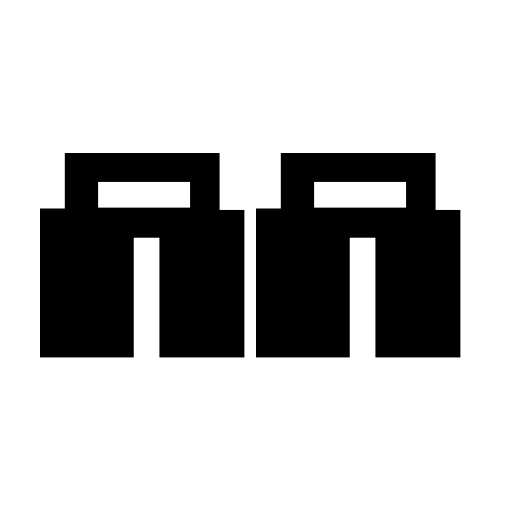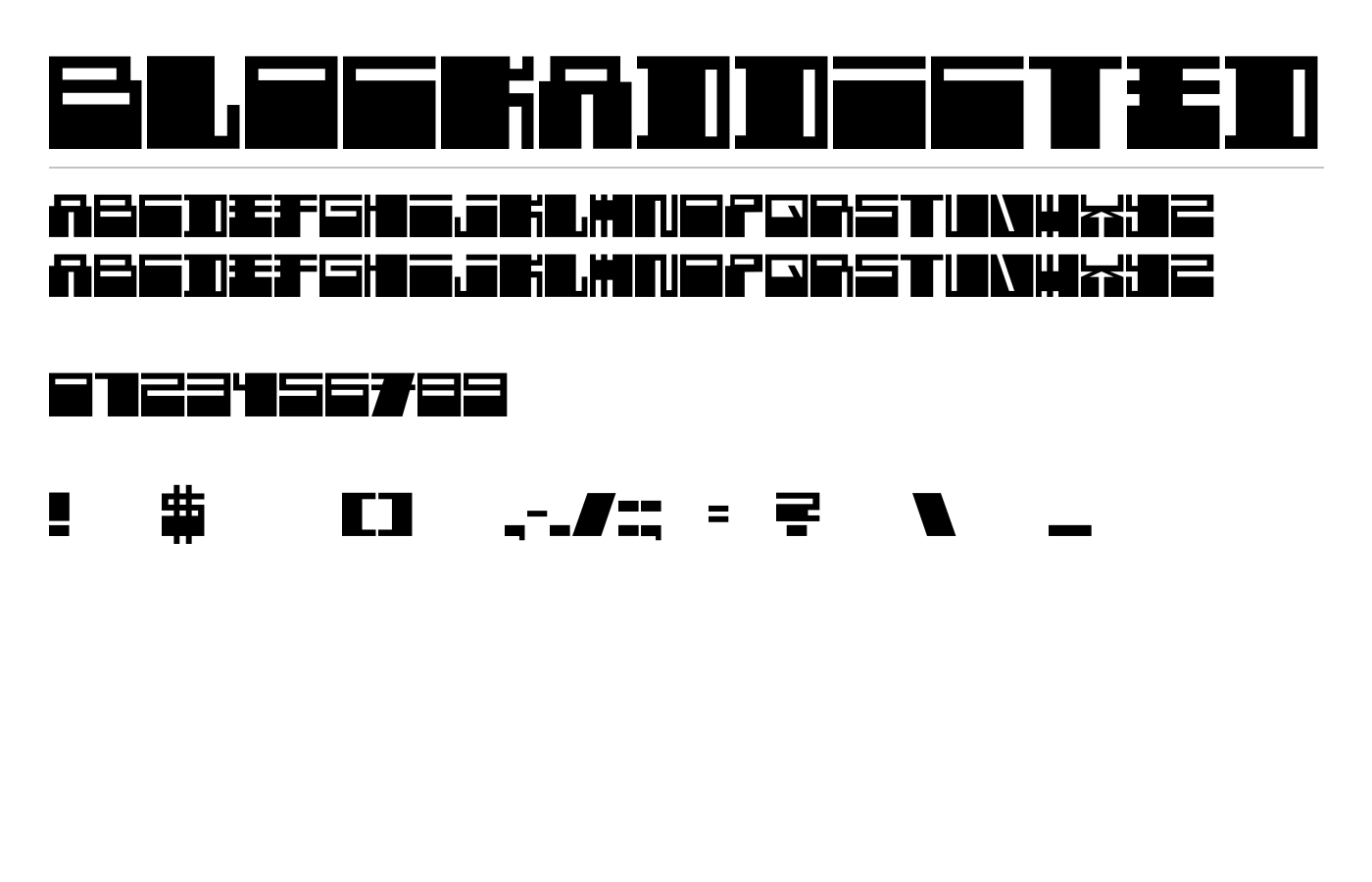
BlockAddicted is a bold, blocky sans serif font with a strong geometric and modular feel, characterized by its thick, uniform strokes and tight spacing. Its unique and futuristic design, featuring sharp angles and a rigid structure, makes it ideal for headlines, logos, and creative projects that need a modern, industrial, or tech-inspired look. This font stands out with its distinct personality, perfect for brands and designs seeking a bold and impactful presence.
BlockAddicted Font
About BlockAddicted Font
| Font family | BlockAddicted Font |
| Designer | Pierre Enorm Exner |